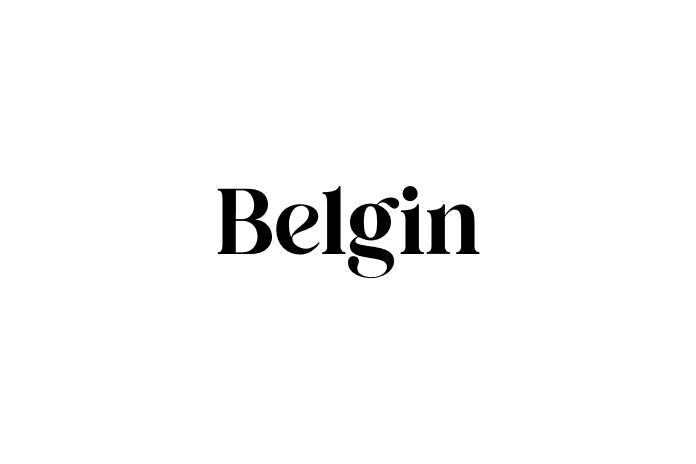
Paragone Font
Paragone is a serif typeface with an elegant and sophisticated look. this font has nice and balanced characters. it’s ideal for many projects such as stationery, logo, wedding, typography, quotes, magazine, book covers, website headers, clothing, branding, packaging design, and more.